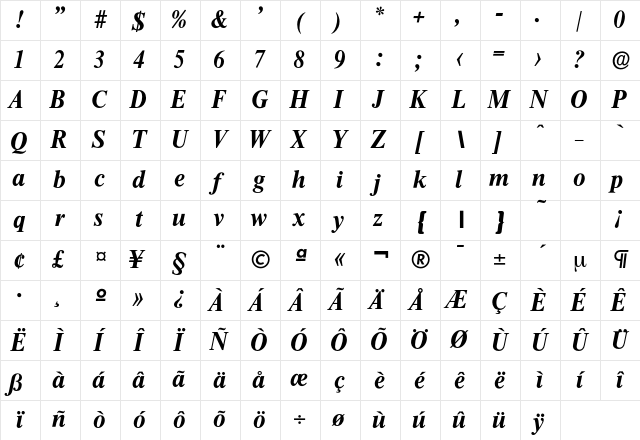
Thames-BoldIta Regular Free Font
Thames-BoldIta Regular
Complete Thames-BoldIta Regular glyph index. Displaying only characters natively supported by Thames-BoldIta Regular font.
Design Context for Thames-BoldIta
Thames-BoldIta is a composed and adaptable typeface that performs quietly and consistently across a wide range of design contexts. Its bold stroke weight gives it real presence on the page.